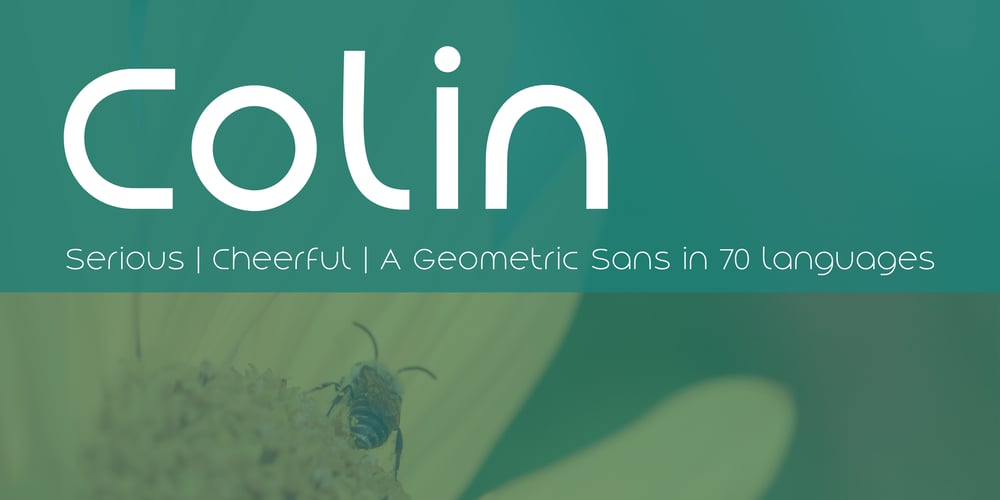
Colin Font Family was designed by Nils Cordes and published by Tickbite Type. Colin contains 7 styles and family package options. Colin is a fresh, somewhat futuristic geometric sans serif type with a large x-height that, to me, communicates both seriousness and cheerfulness. It supports 70 languages incl. monotonic Greek and comes in 7 weights with a small number of alternate glyphs (ss01) for more flexibility. It features fractions, old style and tabular figures. Colin works great in titles, displays and short paragraphs.And where does it come from? To be honest, the reason for this font is a selfish one. I wanted a typeface where my initials (n and c) look identical, just rotated by 90 degrees. That didn’t completely work but, hey, it’s pretty close.